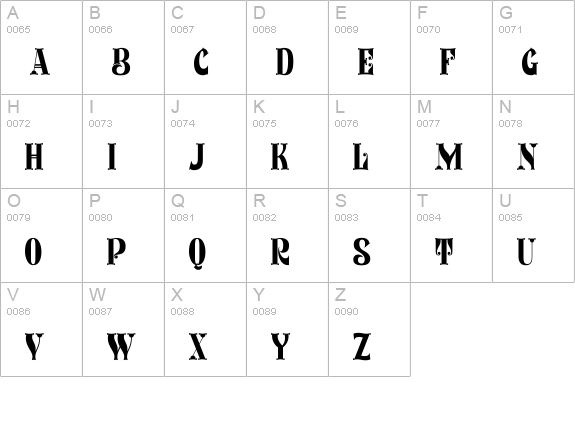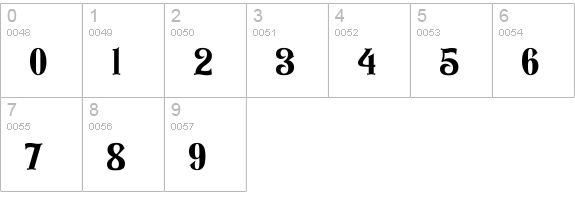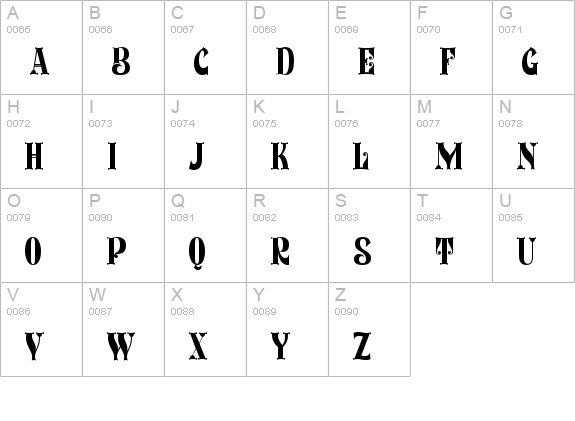
Bronc Stomper Font Details
Bronc Stomper font is a bold and rugged typeface that exudes strength and power. This Western-inspired font features thick, slab serifs and a distinctive vintage style that is perfect for creating eye-catching headlines, logos, and signage. The carefully crafted letterforms of Bronc Stomper font give off a sense of wild west adventure and cowboy spirit. What's even better is that Bronc Stomper font is available for free! You can easily download this striking font at FontsMarket.com and start using it in your design projects right away. Whether you're working on a poster for a rodeo event, designing a saloon menu, or creating a western-themed branding for a client, Bronc Stomper font will add that touch of authenticity and rugged charm to your designs. Don't miss out on this amazing opportunity to enhance your projects with the bold and impactful Bronc Stomper font, available for free at FontsMarket.com.